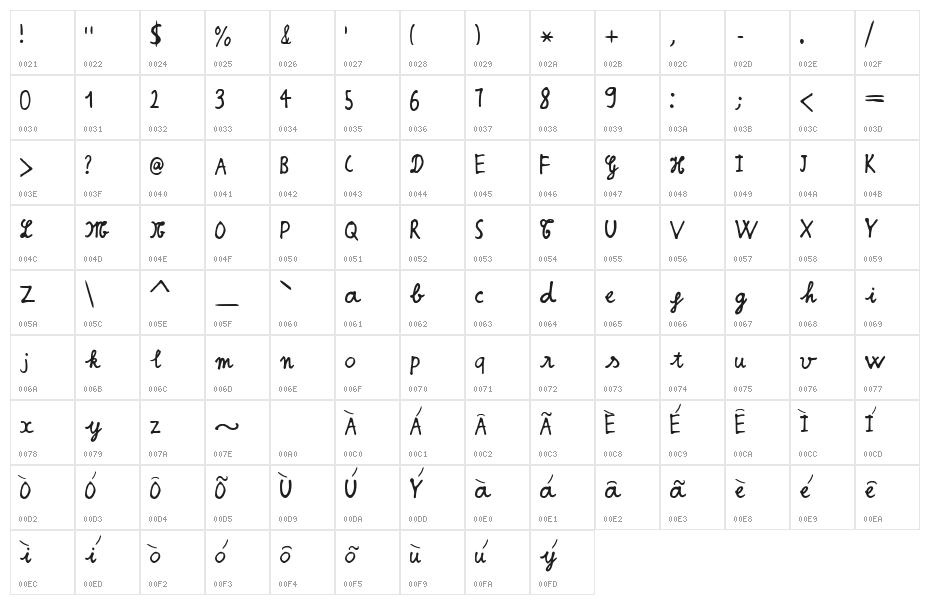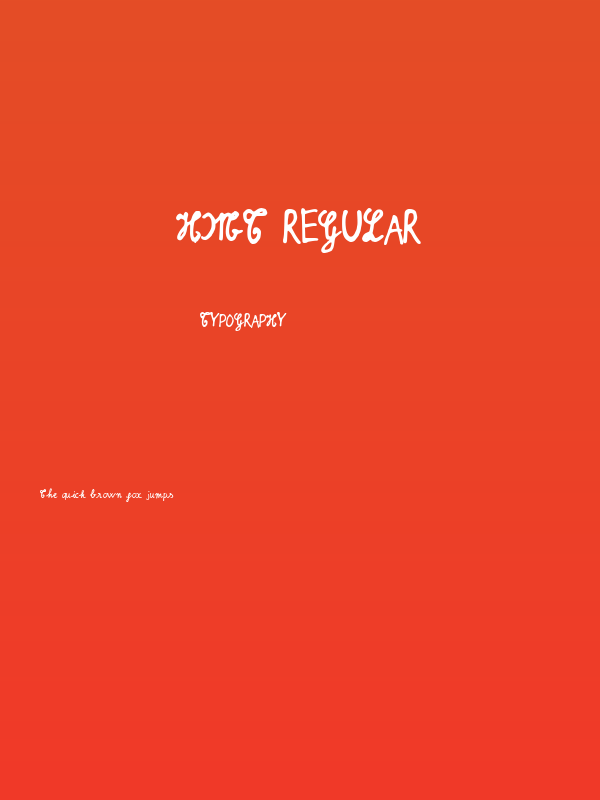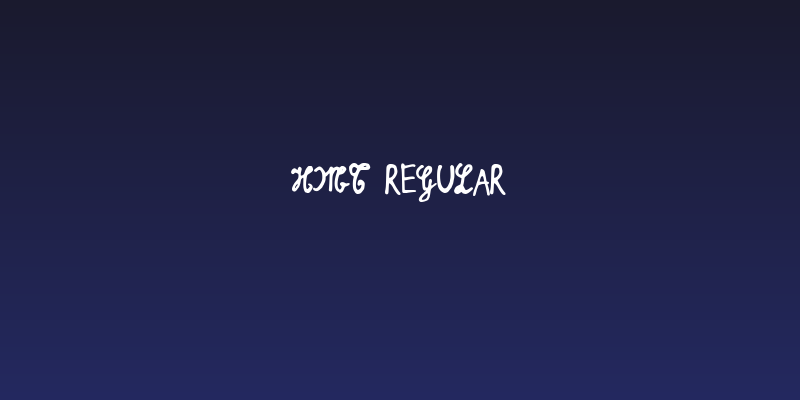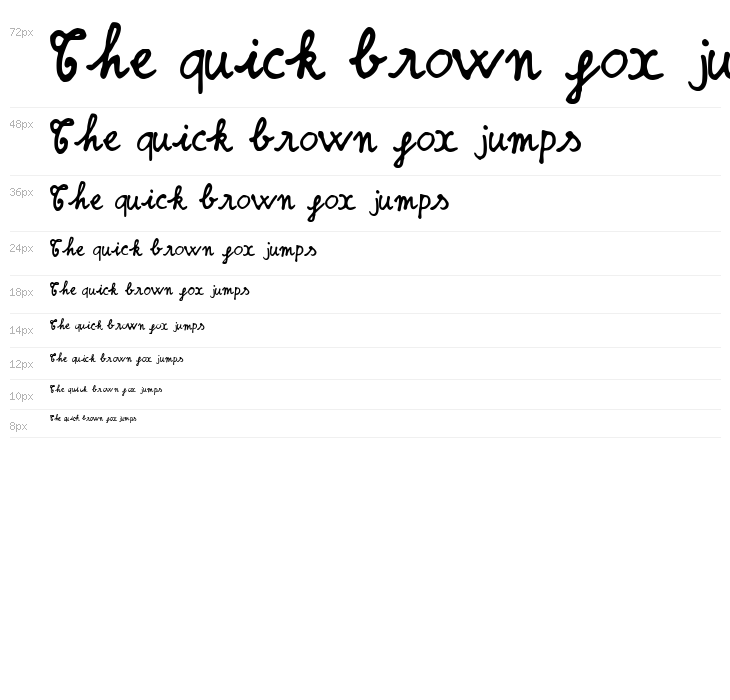
Hmt Regular Font
Hmt Regular Description
This font features a playful and whimsical script style, characterized by its fluid and connected strokes. The uppercase letters exhibit a unique blend of loops and curves, giving them a lively appearance. The lowercase letters maintain a consistent flow, enhancing readability while retaining a hand-drawn charm. Numbers and special characters follow the same stylistic approach, ensuring uniformity across all glyphs. The overall design exudes a casual and friendly vibe, making it suitable for creative and informal applications.
| Use Case | Logos, Invitations, Greeting Cards |
| Proposed Projects | Ideal for greeting cards, invitations, personal branding, and creative projects that require a friendly and informal touch. |